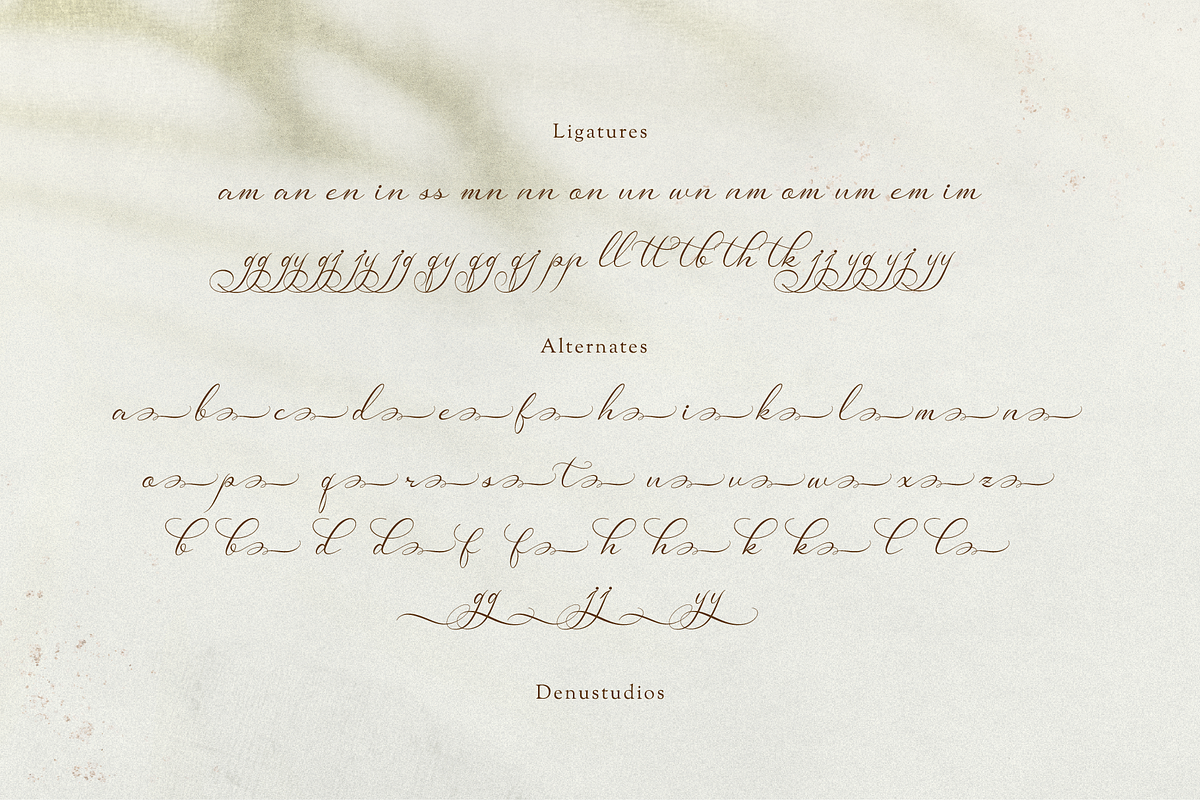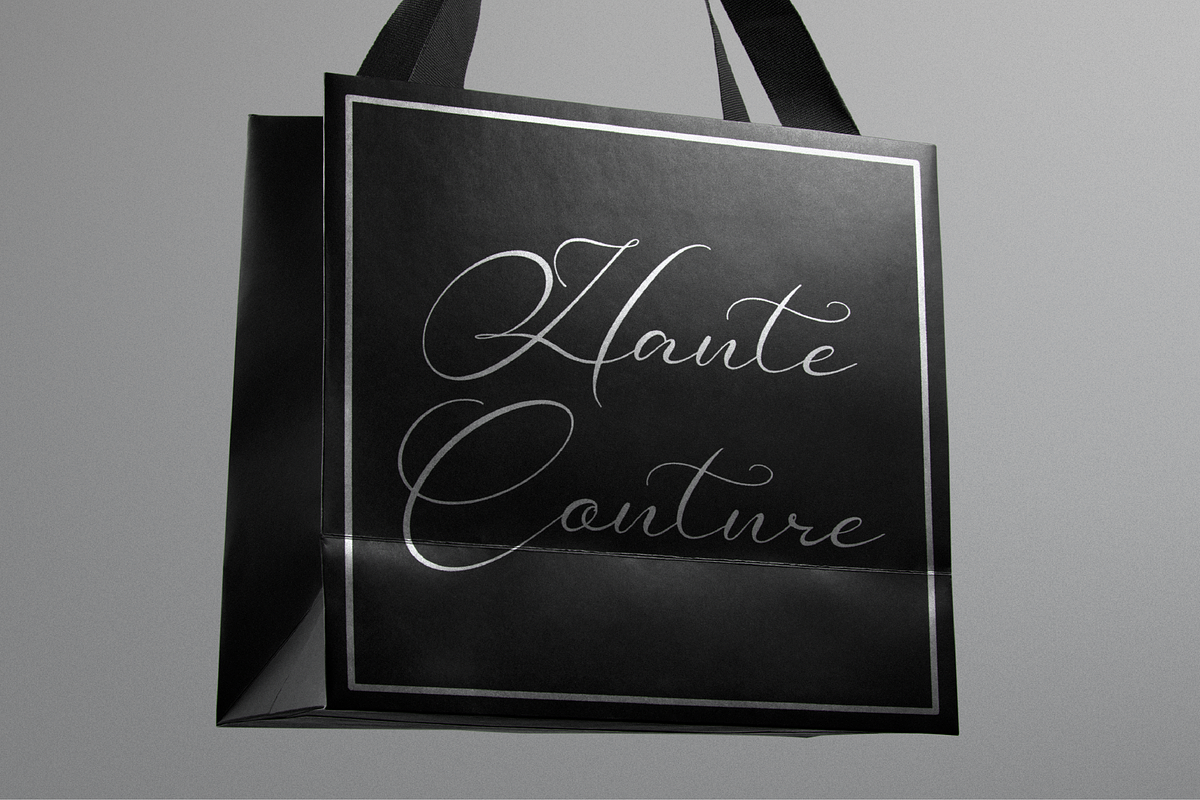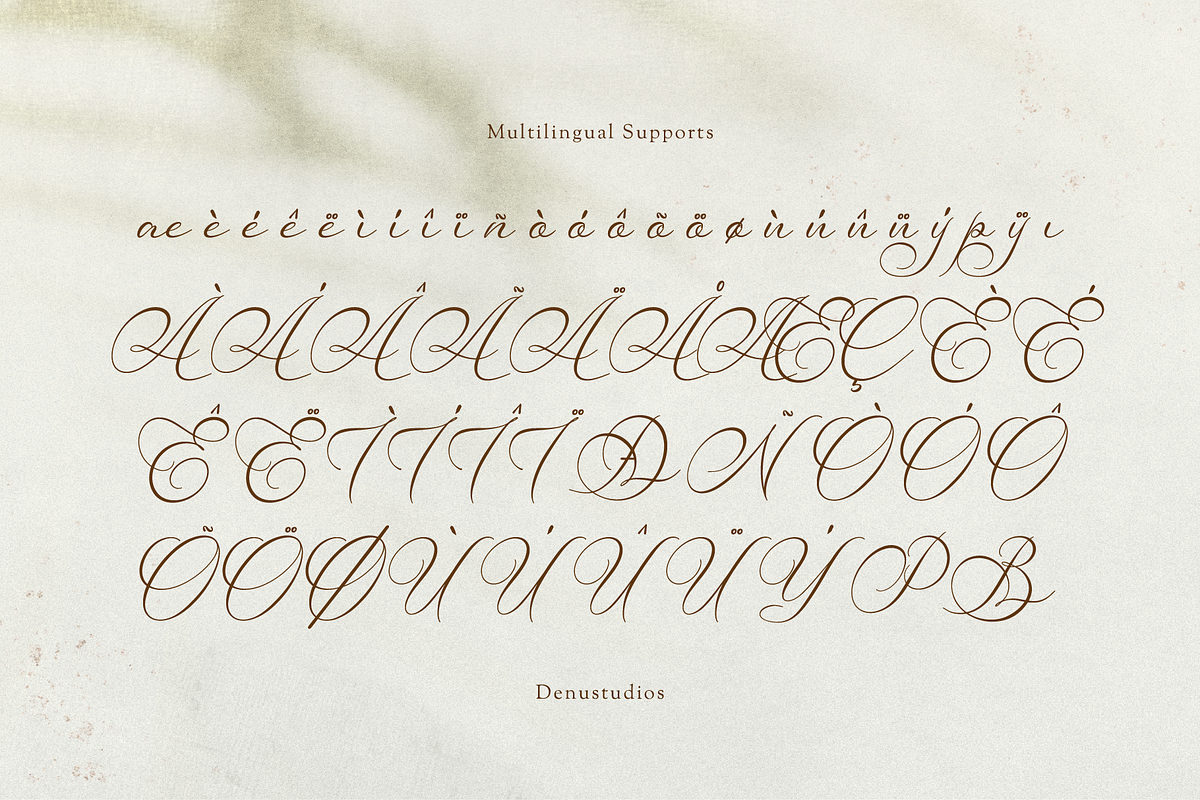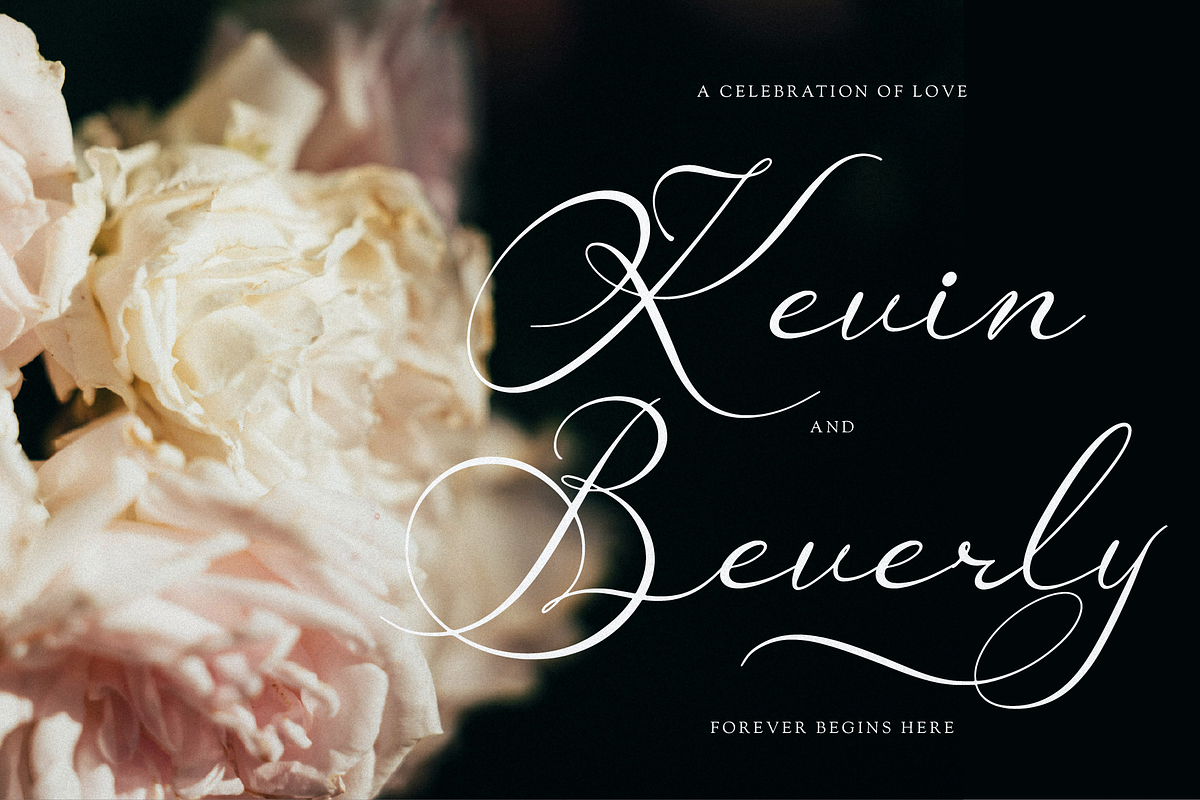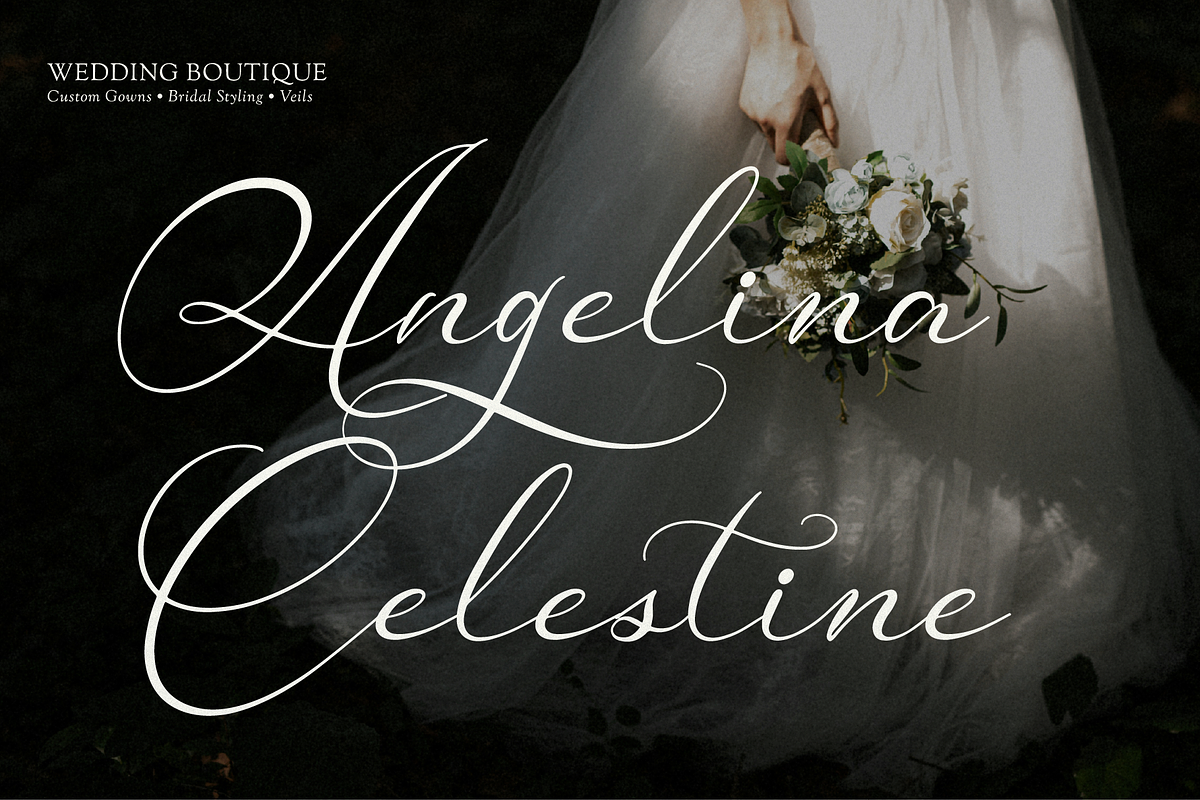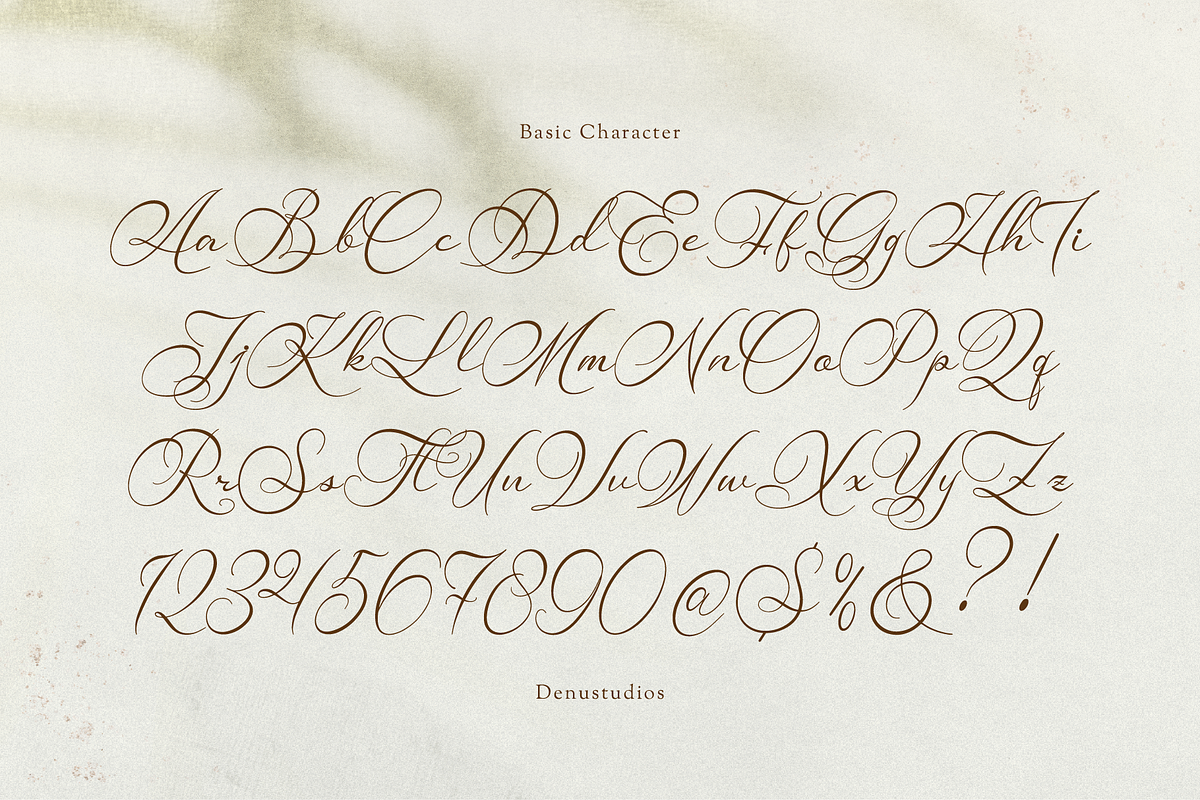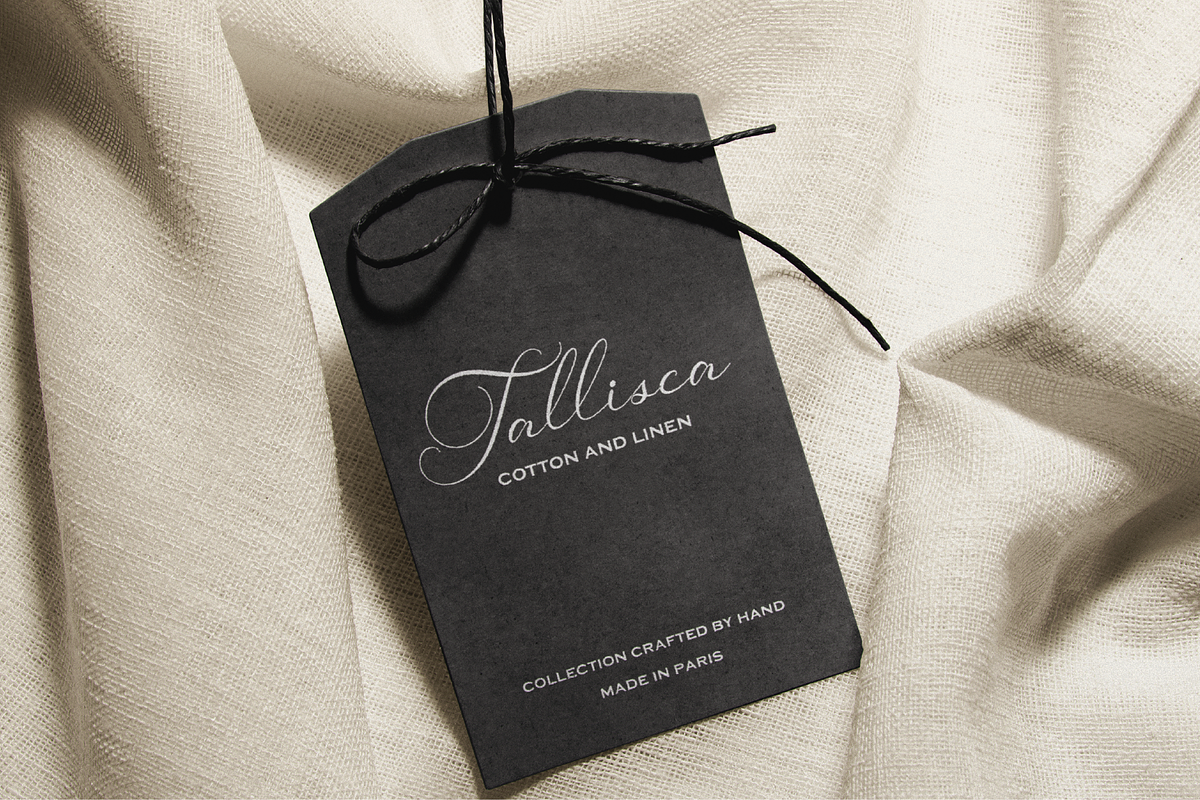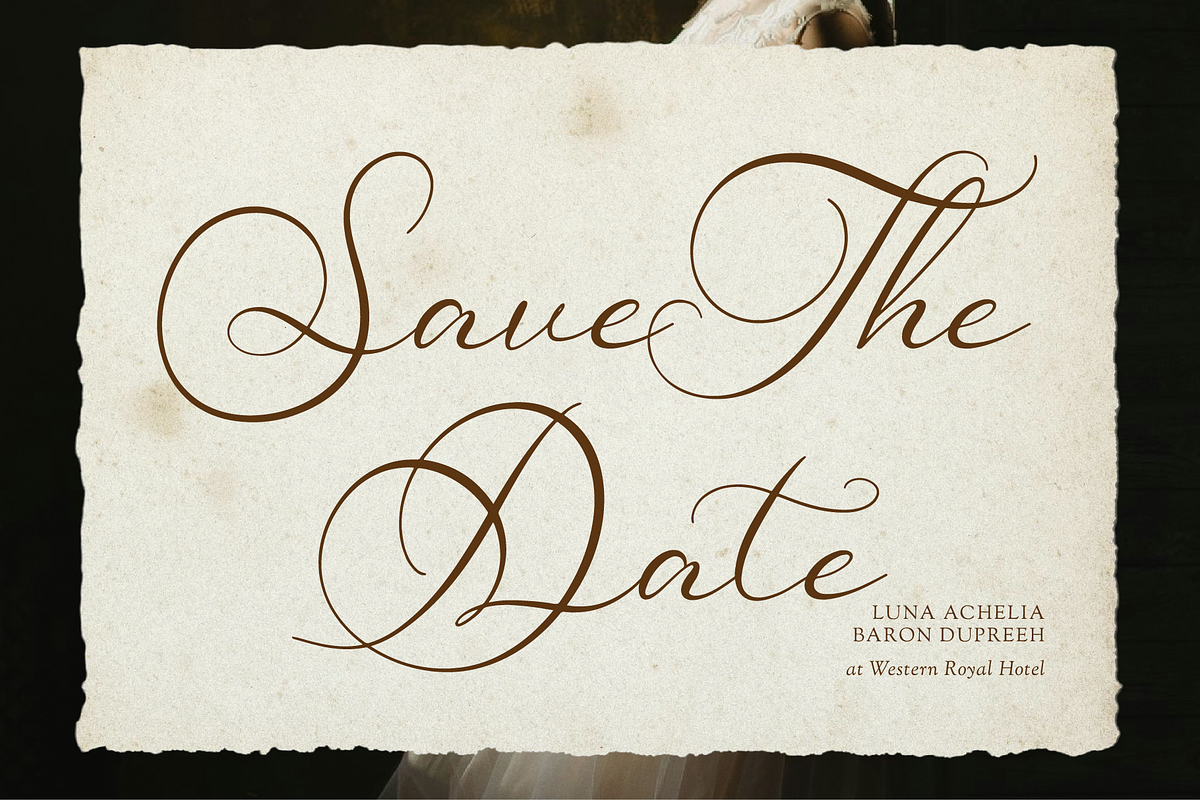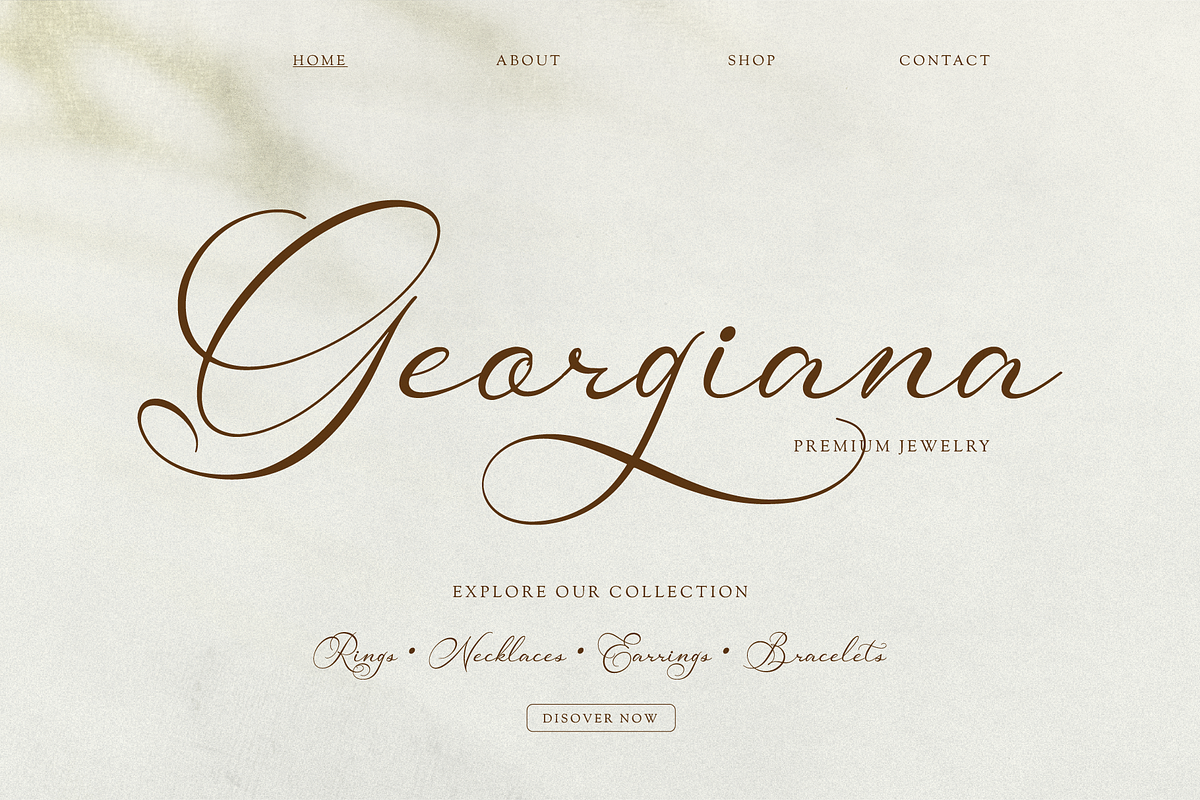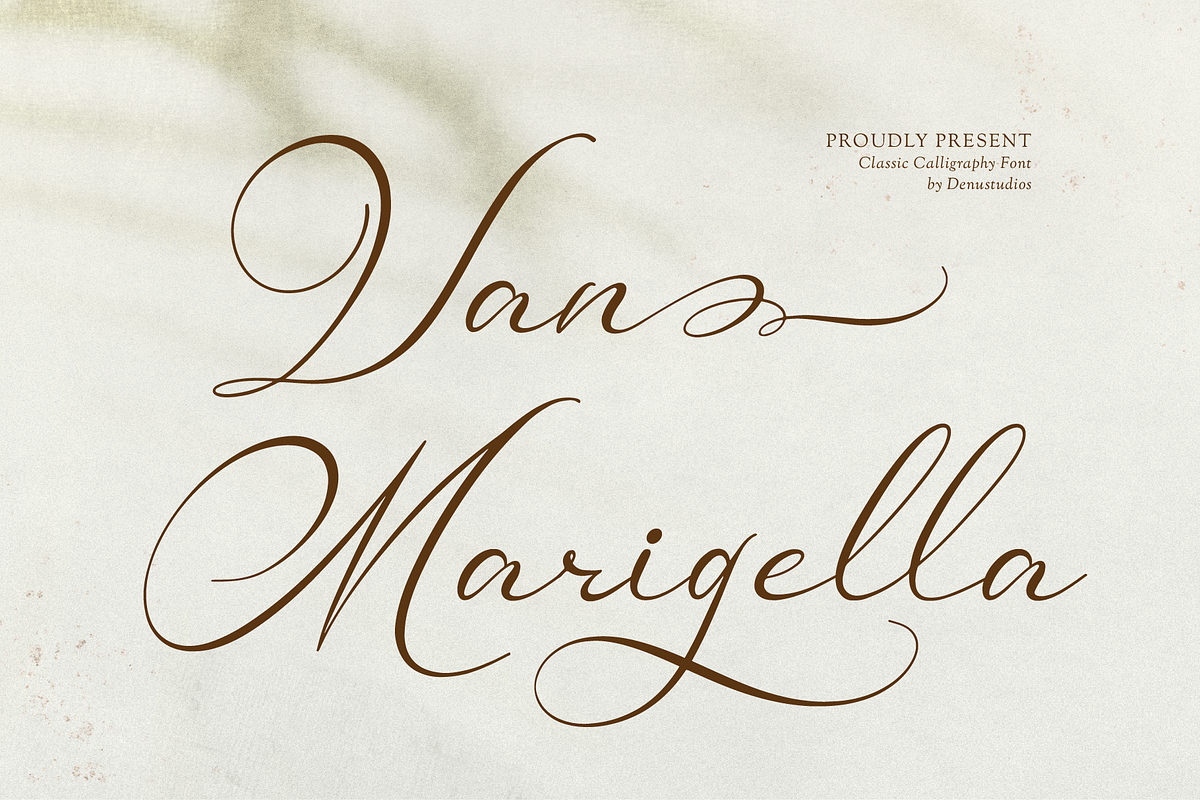
Van Marigella | Classic Calligraphy
Van Marigella | Classic Calligraphy Font, from Denustudios, suitable for any projects such as: logos, branding projects, homeware designs, product packaging, mugs, quotes, posters, shopping bags, t-shirts, book covers, name card, invitation cards, greeting cards, label, photography, watermark, special events, and all your other lovely projects that need a script taste.
Standard glyphs
Alternate and Ligature
Fonts include multilingual support